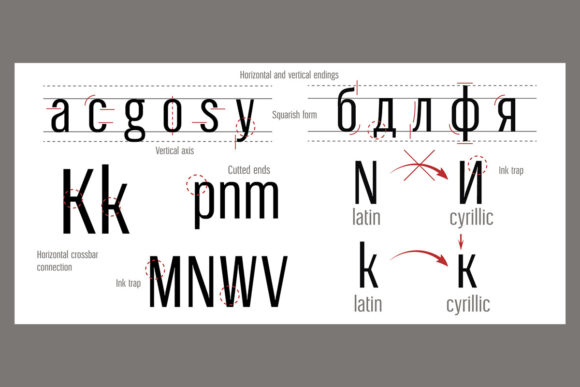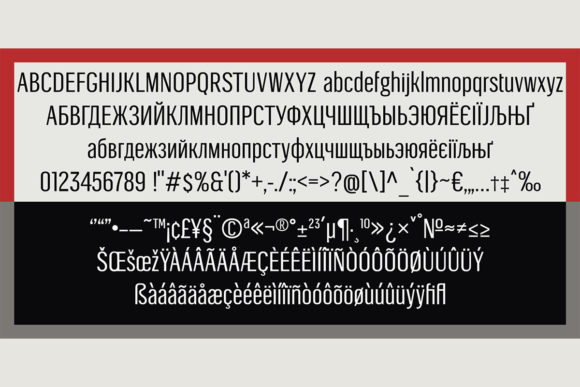
Introducing Galad Font: A Modern Geometric Sans Serif for Creative Designs
Are you tired of using the same old fonts for your designs? Look no further than Galad Font, a modern, geometric looking sans serif font that’s perfect for adding a unique touch to your web designs, business cards, and more. In this article, we’ll dive into the features and benefits of Galad Font, and explore how it can elevate your design game.
What is Galad Font?
Galad Font is a sleek and sophisticated sans serif font that’s designed to make a statement. Its geometric shape and clean lines make it perfect for designs that require a modern and edgy feel. Whether you’re working on a web design project, creating business cards, or crafting a brochure, Galad Font is an excellent choice.
Key Features of Galad Font
- Modern and Geometric Design: Galad Font boasts a unique geometric design that’s perfect for creating modern and edgy designs.
- Sans Serif: The font’s sans serif design makes it easy to read and perfect for digital applications.
- Versatile: Galad Font can be used for a wide range of design projects, from web designs to print materials.
- Unique Touch: The font’s distinctive design ensures that your designs stand out from the crowd.
Benefits of Using Galad Font
So, why should you choose Galad Font for your design projects? Here are just a few benefits of using this amazing font:
- Enhance Your Brand’s Visual Identity: Galad Font can help you create a unique visual identity for your brand that’s modern, edgy, and sophisticated.
- Improve Readability: The font’s clean lines and sans serif design make it easy to read, even at small sizes.
- Increase Creativity: Galad Font’s unique design can inspire creativity and help you think outside the box when it comes to your designs.
- Save Time: With Galad Font, you can create professional-looking designs in no time, thanks to its versatility and ease of use.
How to Use Galad Font in Your Designs
Using Galad Font in your designs is easy. Here are a few tips to get you started:
- Pair it with Other Fonts: Galad Font pairs well with other sans serif fonts, as well as script fonts, to create a unique and interesting contrast.
- Experiment with Colors: The font’s geometric design looks great in bold, bright colors, as well as more muted tones.
- Use it for Headings and Titles: Galad Font is perfect for headings and titles, where its unique design can really shine.
- Try it in Digital Applications: The font’s sans serif design makes it perfect for digital applications, such as web designs, mobile apps, and more.
In conclusion, Galad Font is a modern, geometric looking sans serif font that’s perfect for designers and crafters looking to add a unique touch to their designs. With its versatile design, ease of use, and range of benefits, Galad Font is an excellent choice for any design project. So why not give it a try and see how it can elevate your designs?